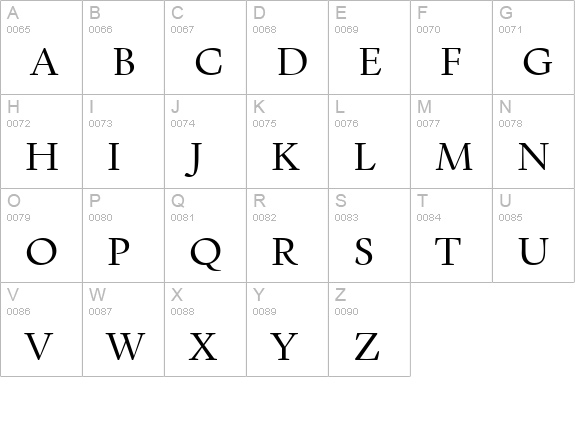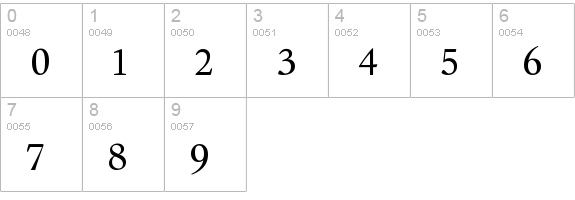
Kennedy Book GD is a comfortable, highly readable variant in the Kennedy typeface family \xE2\x80\x94 well suited to long-form body text, articles, and editorial content.
Introducing Kennedy Book GD, a stunning font that effortlessly blends elegance with modernity. This versatile typeface is perfect for a wide range of design projects, from sophisticated branding to eye-catching headlines. With its clean lines and balanced proportions, Kennedy Book GD exudes professionalism and style. The font's sleek and timeless design is complemented by its extensive character set, featuring a wide range of ligatures, alternates, and swashes. This allows for endless creative possibilities and ensures that every project stands out from the crowd. What makes Kennedy Book GD even more remarkable is that it is available for free. Yes, you read that right! This exceptional font can be freely downloaded at FontsMarket.com, allowing designers, creatives, and enthusiasts alike to enjoy its beauty without any limitations. Whether you're a seasoned professional or just starting on your design journey, Kennedy Book GD is a must-have addition to your font library. Its versatility, elegance, and availability make it the perfect choice for any project, whether it's a logo, packaging design, website, or print materials. So why wait? Experience the brilliance of Kennedy Book GD today and elevate your designs to new heights. Download it for free at FontsMarket.com and unlock a world of endless creative possibilities.